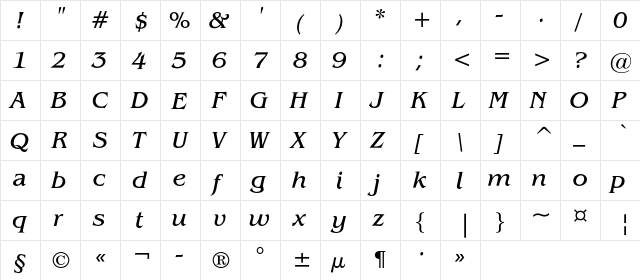
BeneficeAP Italic
Design Context for BeneficeAP Typeface
BeneficeAP is a composed and adaptable typeface that performs quietly and consistently across a wide range of design contexts. Its italic angle brings a sense of urgency and motion to the letterforms.
Pro Tip: Try BeneficeAP for annotation and caption copy alongside an upright companion — the contrast in angle creates a dynamic but ordered typographic system.